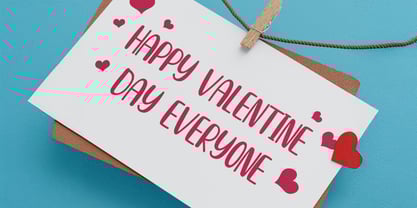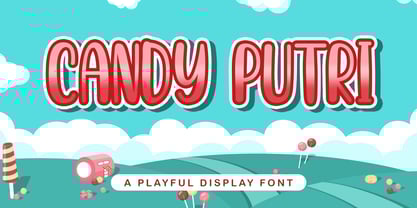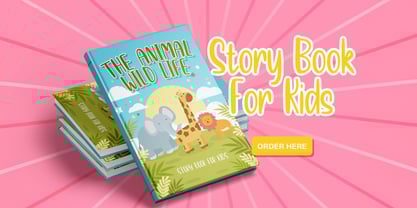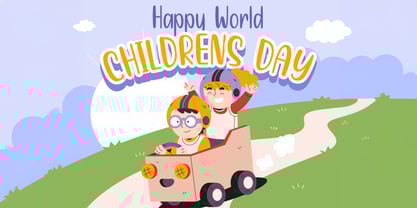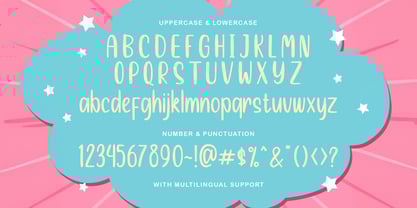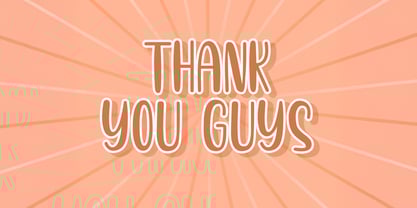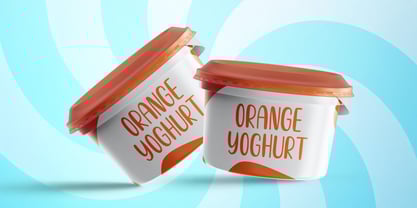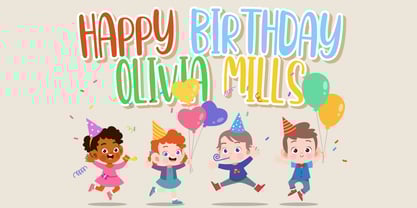
The Candy Putri Font Family was designed by Virgiawan Listanto and published by Stringlabs Creative Studio. Candy Putri contains 1 styles.
CANDY PUTRI is a cheerful and colorful playful display font that brings joy and sweetness to your designs. With bubbly shapes, cute curves, and a lighthearted vibe, this font is perfect for adding fun and imagination to any project especially those made for kids or creative themes.